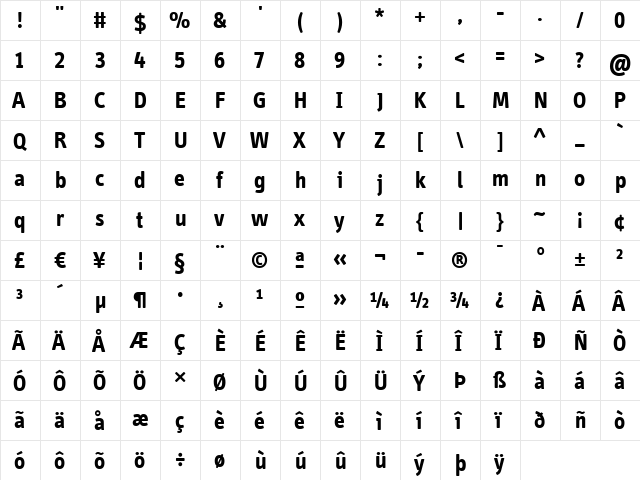
Info Web-Bold Regular
| Designer | Erik Spiekermann, Ole Schaefer |
Design Context for Info Web-Bold Typeface
Info Web-Bold takes a measured approach to typography — its balanced proportions and neutral character make it a reliable workhorse for both digital and print work. Its bold stroke weight gives it real presence on the page.